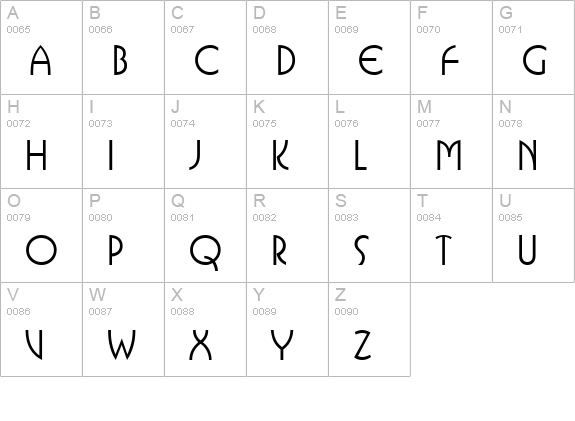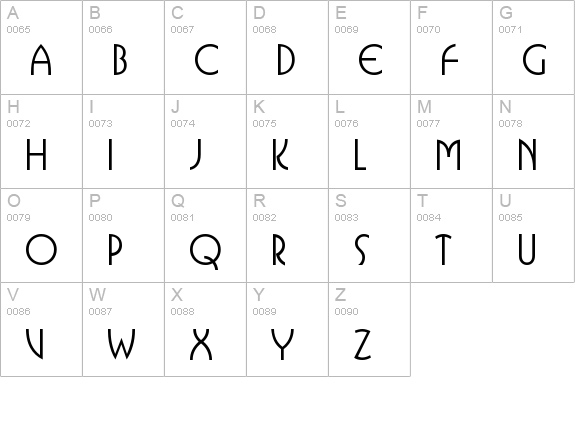
Isolat SSi is a stunning font that effortlessly blends elegance and modernity. It embodies sophistication with its sleek and refined design, making it the perfect choice for any project that requires a touch of class. Every letter of Isolat SSi is meticulously crafted, ensuring impeccable legibility and aesthetic appeal. The harmonious curves and clean lines create a sense of balance and harmony, making it a versatile font that can be used in a variety of design contexts. One of the standout features of Isolat SSi is its versatility. Whether you're designing a logo, a website, a poster, or any other creative endeavor, this font will elevate your work to new heights. It has the power to captivate and engage viewers, leaving a lasting impression. The best part? Isolat SSi is available for free! You can easily download this font from FontsMarket.com, ensuring that you have access to this exceptional typeface without any cost. Its availability as a free download makes it an excellent choice for designers, students, and anyone else looking to enhance their creative projects without breaking the bank. So why wait? Experience the elegance and versatility of Isolat SSi font today by downloading it for free at FontsMarket.com. Let this font elevate your designs and make a lasting impact on your audience.